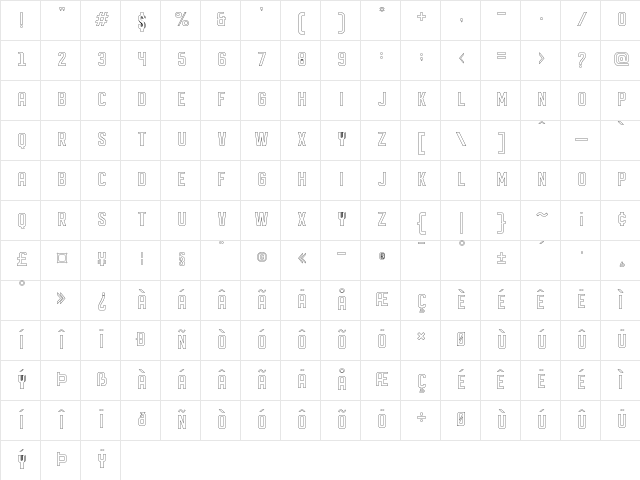
DISPLAYEDoutline Font Preview
DISPLAYEDoutline outline
DISPLAYEDoutline Font Details
Design Context for DISPLAYEDoutline Typeface
DISPLAYEDoutline is built around its visual character rather than neutral utility — its distinctive forms are designed to make an impression at display sizes.
Font Pairing: Pair with a clean neutral sans-serif for body copy to let DISPLAYEDoutline's character lead without overwhelming the composition.
Pro Tip: Treat DISPLAYEDoutline as the centrepiece of your typographic hierarchy. One strong heading set in a decorative face can carry an entire layout.